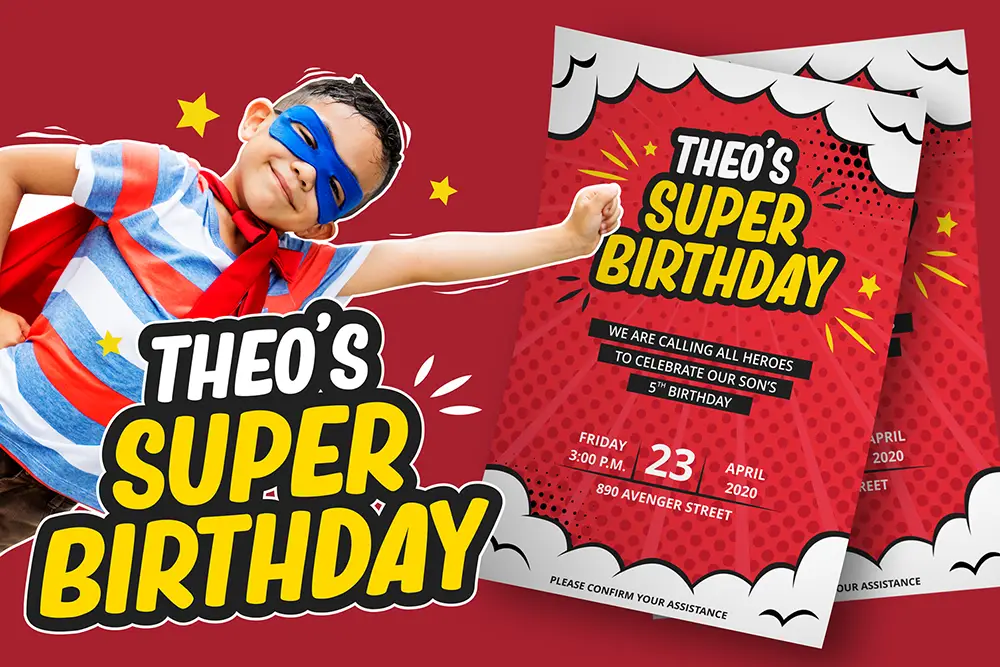
You can almost hear it — laughter echoing, balloons brushing against ceilings, the smell of frosting in the air. On the table, a stack of invitations sits proudly, each one bursting with color and personality. The name “Amelia” twirls in bright pink letters; beneath it, “Saturday, 3 PM” smiles back in neat sans serif clarity.
That’s the power of great Fonts for Kids’ Birthday designs: they don’t just announce a date — they set the mood, capture the excitement, and become part of the memory.
Every freelance designer or studio owner knows this feeling — that little thrill when typography finally feels like the child it celebrates. But finding that perfect balance between playful and polished? That’s where art meets strategy.
When parents scroll through party invite designs, they’re not comparing fonts — they’re feeling emotions. They want to see joy, safety, warmth. And your font choice delivers that story before any words are read.
According to 99designs’ hierarchy guide, using one expressive display typeface supported by a clean sans serif helps readers scan faster and builds trust — especially in bright, busy layouts. Meanwhile, Google Fonts’ accessibility principles remind us that open counters, generous spacing, and contrast improve legibility across all ages.
Because yes — even a five-year-old deserves good design.
Designing Fonts for Kids’ Birthday projects is like organizing a playground — it’s fun, but it needs boundaries.
Before you pick your fonts, ask yourself:
As WebDesignerDepot points out, smart color contrast makes letters pop without tiring the viewer — a rule that matters when your canvas is full of confetti, glitter, and joy.
If fonts could talk, these ones would giggle, shout, and dance across the page.
Every pick below is handcrafted from the Figuree Studio catalog — perfect for invitations, banners, party signs, and even cupcake toppers.
Kids Zone – A layered, candy-colored font made for headlines that scream “party!”
Playkidz – Soft edges and rounded forms make this one perfect for cake toppers or gift tags.
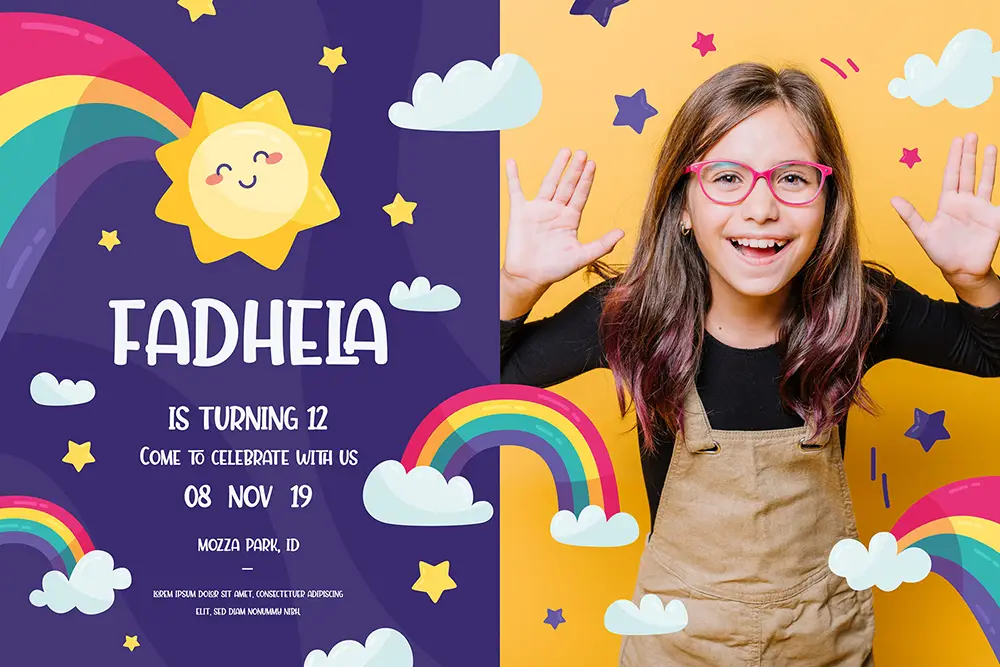
Kidos Marker – Feels hand-drawn and full of laughter — ideal for handmade invitations.
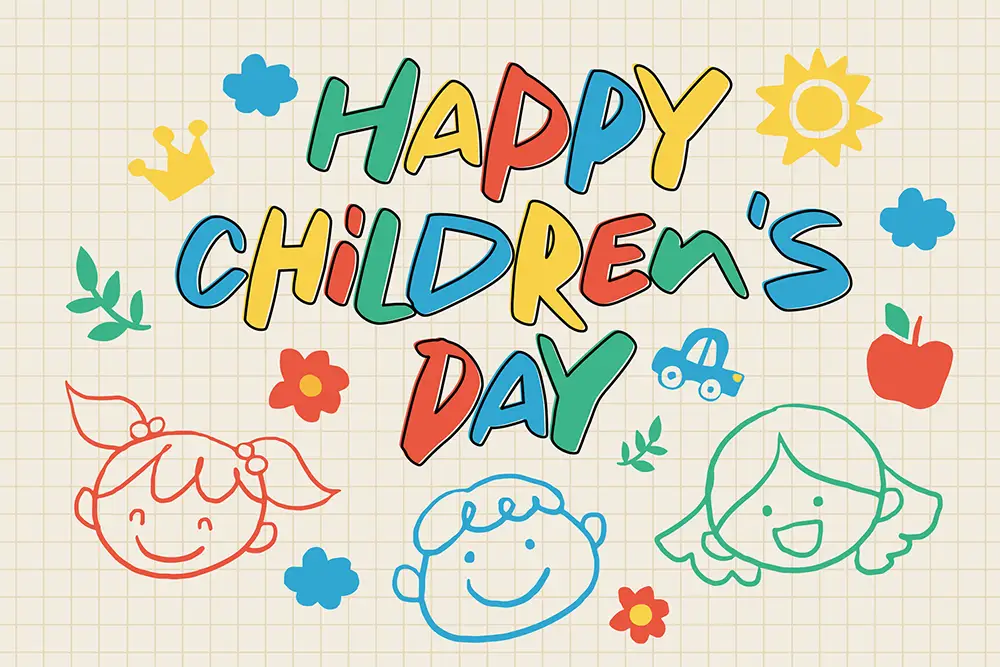
Magic Dreams – Comic-style bounce that brings joy to printable games or name banners.
Funkie Bunny – Whimsical, bouncy, and perfect for animal or spring-themed parties.
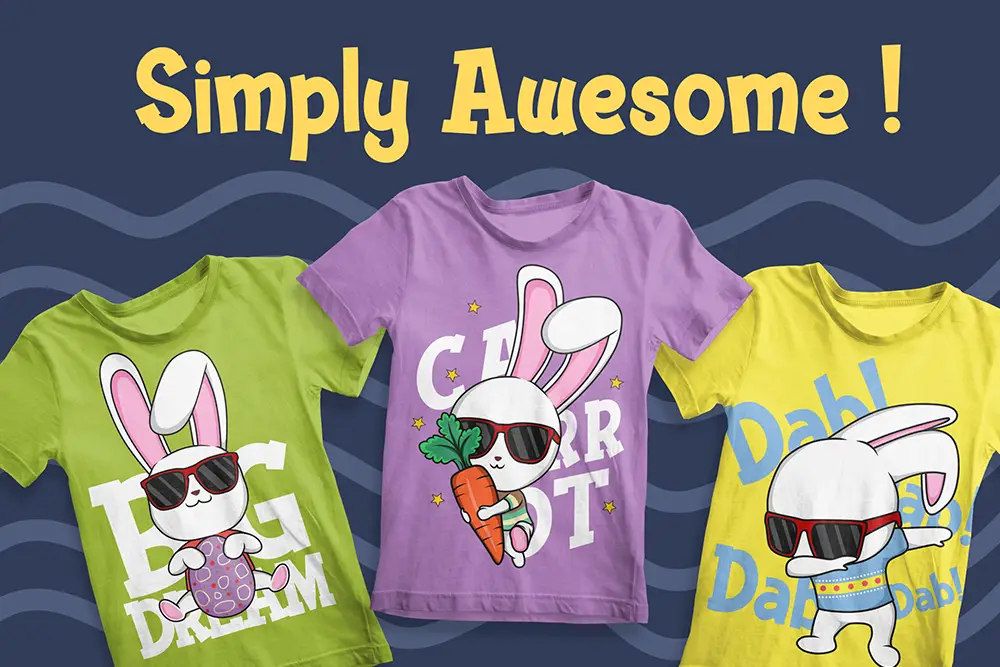
Komica Brought – Works beautifully in body text for small birthday notes or thank-you tags.
Spark Boys – A superhero burst of fun — bold, dynamic, and full of comic-book energy.
Fresh Kids – Bright, cheerful, and great for centerpieces or printable worksheets.
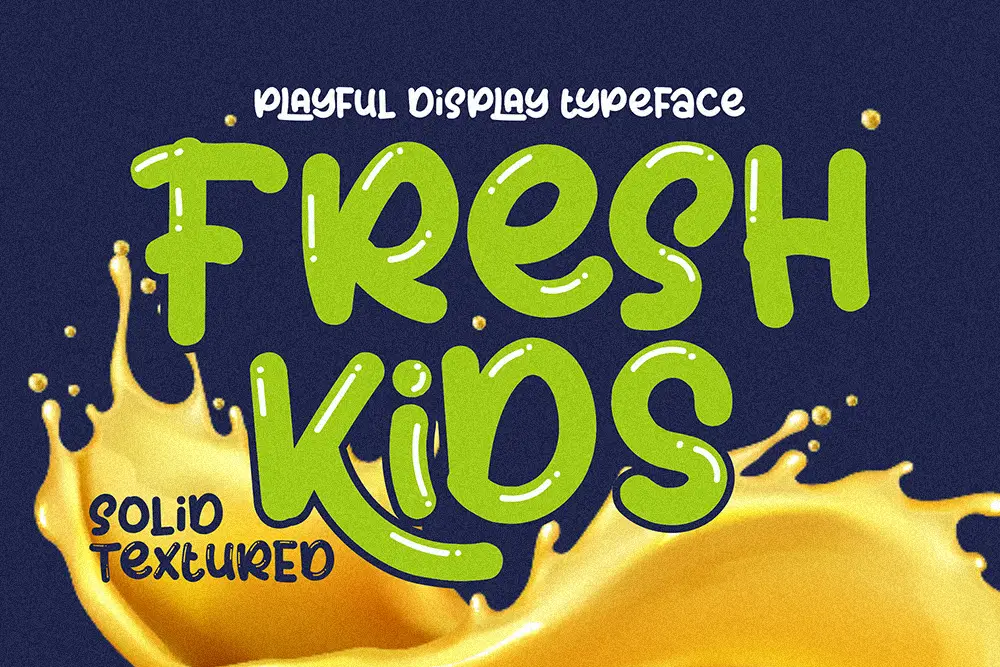
Skiddy Toons – Adds dimensional depth with layered outlines that pop on banners.
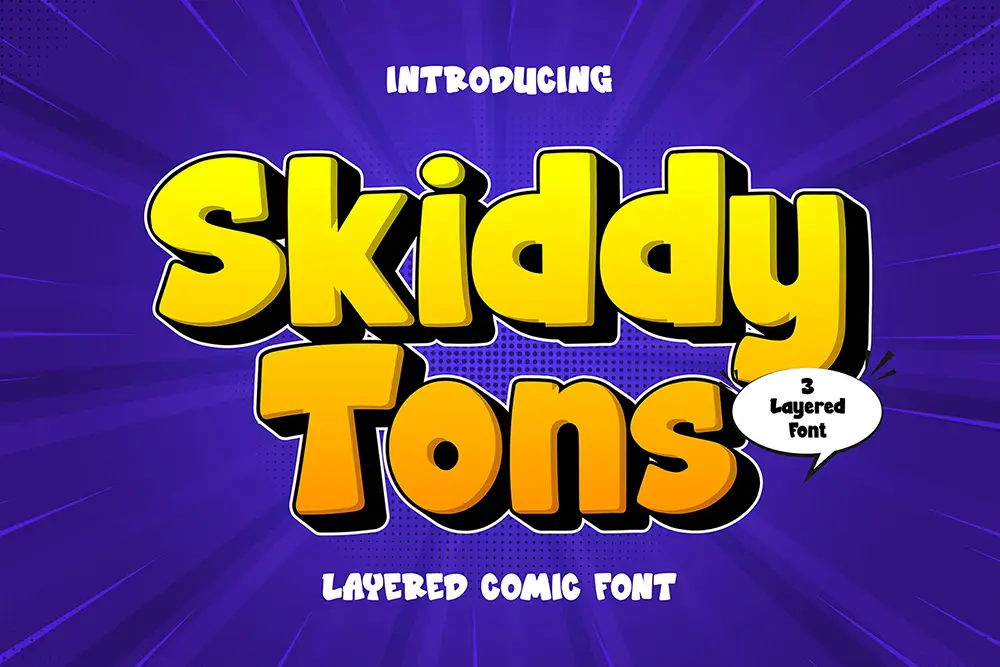
Boldie Chunks – Chunky and friendly, it keeps text legible even on small stickers.
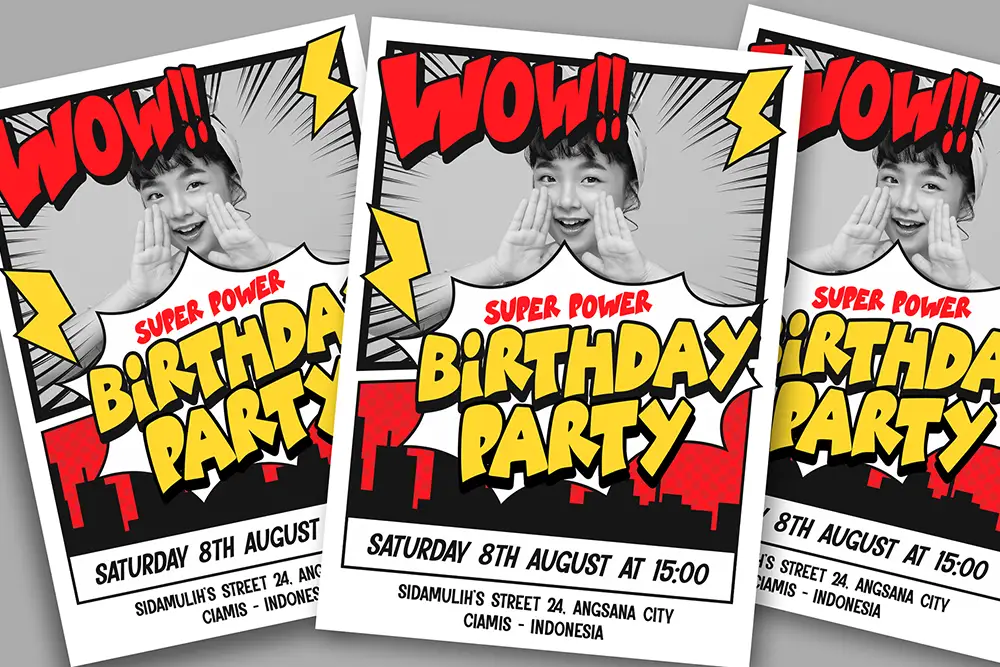
Komix Eighties – Brings retro arcade vibes to the birthday table — a burst of nostalgia.
Hero Bump – Bold and punchy — perfect for comic bubbles like “YAY!” or “BOOM!”.
Comic Roasting – A softer, more relaxed comic tone for younger audiences.
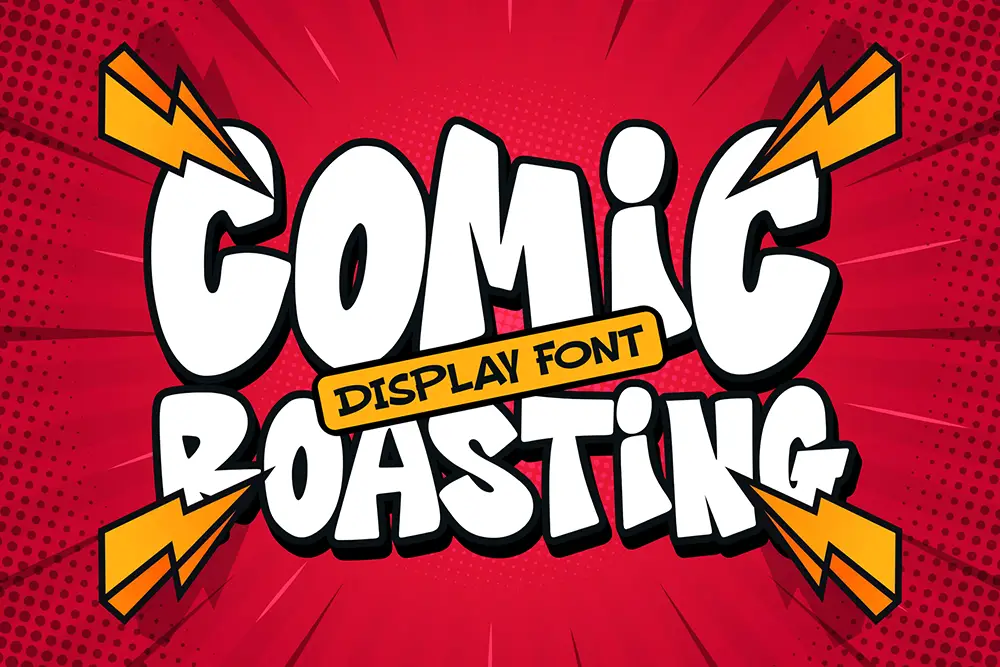
Unicorn Pop – Whimsical, glitter-loving, and totally magical — every little girl’s dream font.
Midnight Workers – Use it as the grown-up anchor font for RSVP, date, or address details.
Imagine your layout like a birthday cake: the frosting is the display font — colorful, dramatic, irresistible. But the sponge underneath? That’s your sans serif, steady and dependable. Together, they create a balance that feels fun and functional.
Here are a few tried-and-true combos designers swear by:
Keep contrast high, avoid overdecorating, and remember — good design celebrates joy without shouting.
We’ve designed countless birthday sets — from jungle themes to space rockets — and one lesson always sticks: children don’t need perfection; they need personality.
“Design is not just what it looks like and feels like. Design is how it works.” — Steve Jobs
“Simplicity is the ultimate sophistication.” — Leonardo da Vinci
These quotes may sound grown-up, but they echo in every joyful design. The best Fonts for Kids’ Birthday projects let color and letters dance together, not compete. Every giggle, sparkle, and memory starts with a designer brave enough to believe that fonts can feel.
Let your fonts laugh, dance, and shine.
Design with clarity. Grow with confidence.
And let every child’s name become its own celebration.